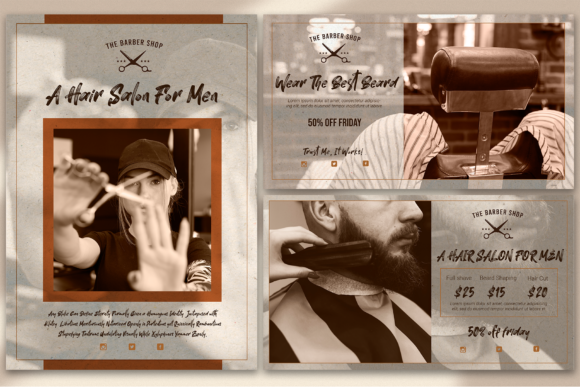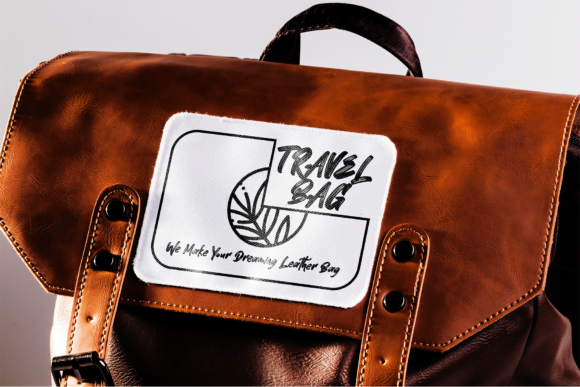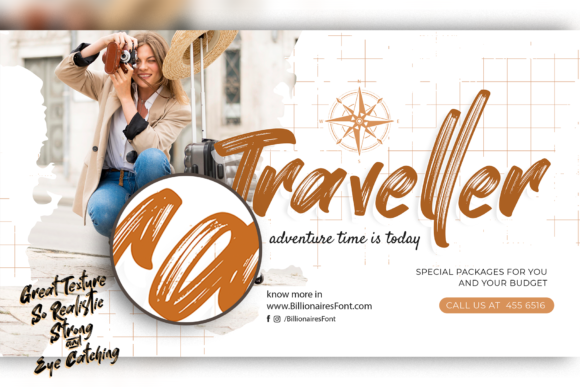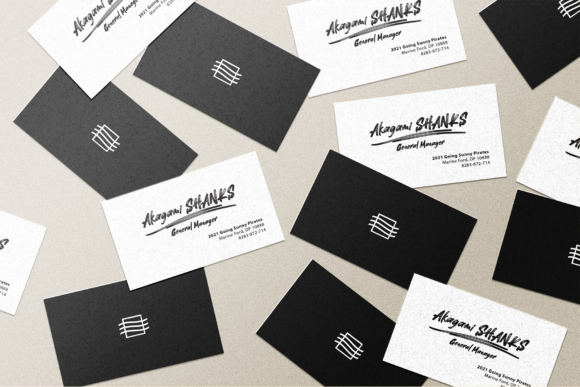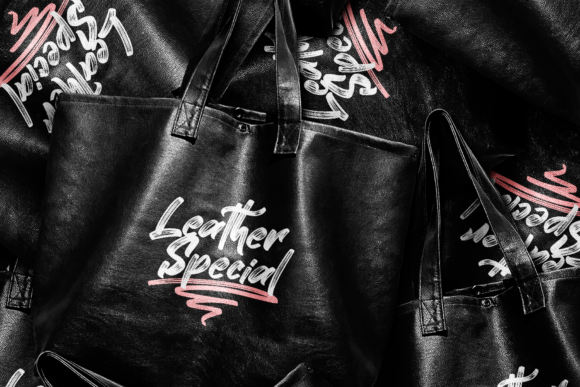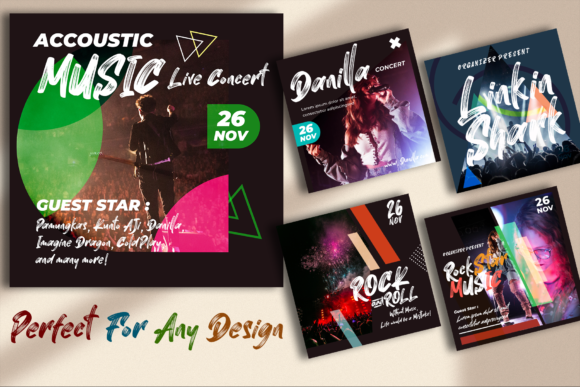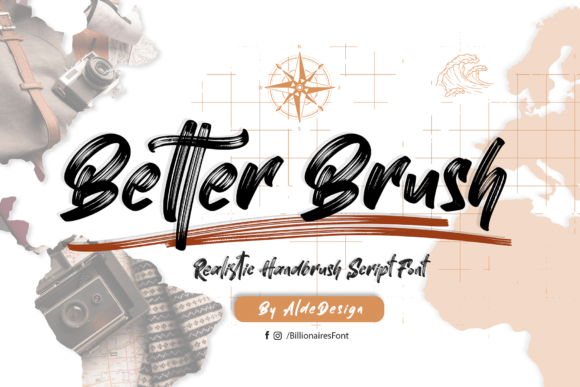
Better Brush Font: Elevate Your Designs with a Cool and Bold Brushed Handwritten Style
Are you looking for a font that can add a touch of personality and elegance to your designs? Look no further than the Better Brush font. This cool and bold brushed handwritten font is perfect for designers and crafters who want to create unique and eye-catching visuals. In this article, we’ll explore the features and benefits of the Better Brush font, and show you how to use it to take your designs to the next level.
What is Better Brush Font?
Better Brush is a modern and stylish font that mimics the look of brushed handwriting. It’s a versatile font that can be used for a wide range of purposes, including logos, wedding invitations, headings, t-shirts, letterhead, signage, labels, news, posters, badges, and more. The font features bold and expressive strokes, giving it a dynamic and energetic feel that’s sure to grab attention.
Key Features of Better Brush Font
- Cool and bold design: The Better Brush font features a unique and stylish design that’s perfect for making a statement.
- Brushed handwritten style: The font mimics the look of brushed handwriting, giving it a personal and artistic feel.
- Versatile: The font can be used for a wide range of purposes, from logos and headings to t-shirts and signage.
- Easily readable: Despite its bold and expressive strokes, the font is easy to read, making it perfect for body text and headlines.
Benefits of Using Better Brush Font
So why choose the Better Brush font for your designs? Here are just a few benefits of using this amazing font:
- Adds personality to your designs: The Better Brush font is perfect for designers who want to add a touch of personality and elegance to their designs.
- Perfect for creative projects: The font is ideal for creative projects, such as wedding invitations, posters, and t-shirts.
- High-quality: The font is high-quality and comes with a range of characters, including uppercase and lowercase letters, numbers, and punctuation.
How to Use Better Brush Font
Using the Better Brush font is easy. Here are a few tips to get you started:
- Pair it with a simple font: Pair the Better Brush font with a simple font, such as Arial or Helvetica, to create a striking contrast.
- Use it for headings: The font is perfect for headings and titles, where you want to make a bold statement.
- Experiment with colors: The font looks great in a range of colors, from bold and bright to subtle and pastel.
- Use it for branding: The font is perfect for branding, where you want to create a unique and memorable identity.
In conclusion, the Better Brush font is a cool and bold brushed handwritten font that’s perfect for designers and crafters who want to create unique and eye-catching visuals. With its versatile design, easily readable strokes, and high-quality characters, this font is ideal for a wide range of purposes, from logos and headings to t-shirts and signage. So why not give it a try and see how it can elevate your designs to the next level?